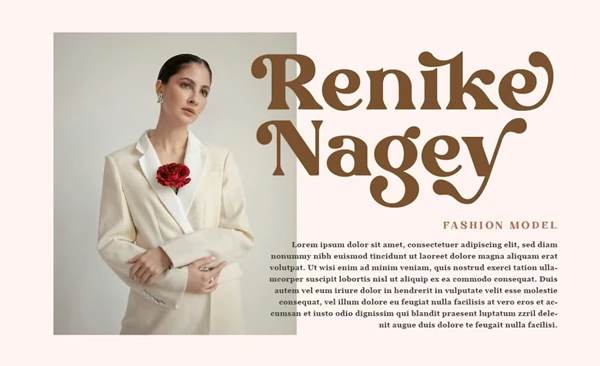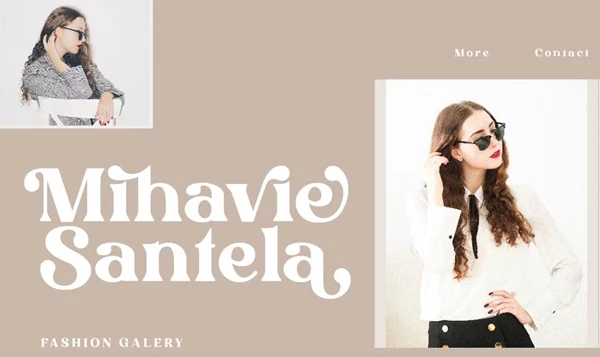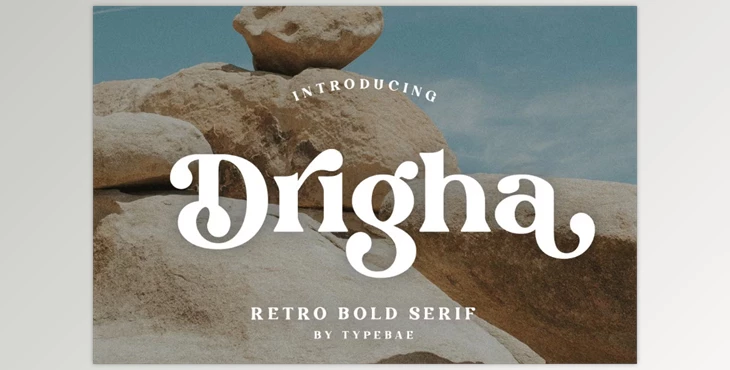
Drigha - Stylish Serif Font:
Drigha is a retro-modern serif typeface with a twist, having bold and cheerful traits that make it particularly fitting for the 1960s and 1970s-inspired designs. This font is embedded with PUA encoding, including more than 90 veritable alternates and 20 unique ligatures, allowing users to achieve a remarkable vintage-style design effortlessly.
- Over 90 stylistic alternates and 20 ligatures increase design customization creatively.
- Characters can be accessed without needing specialized design software, thanks to PUA encoding.